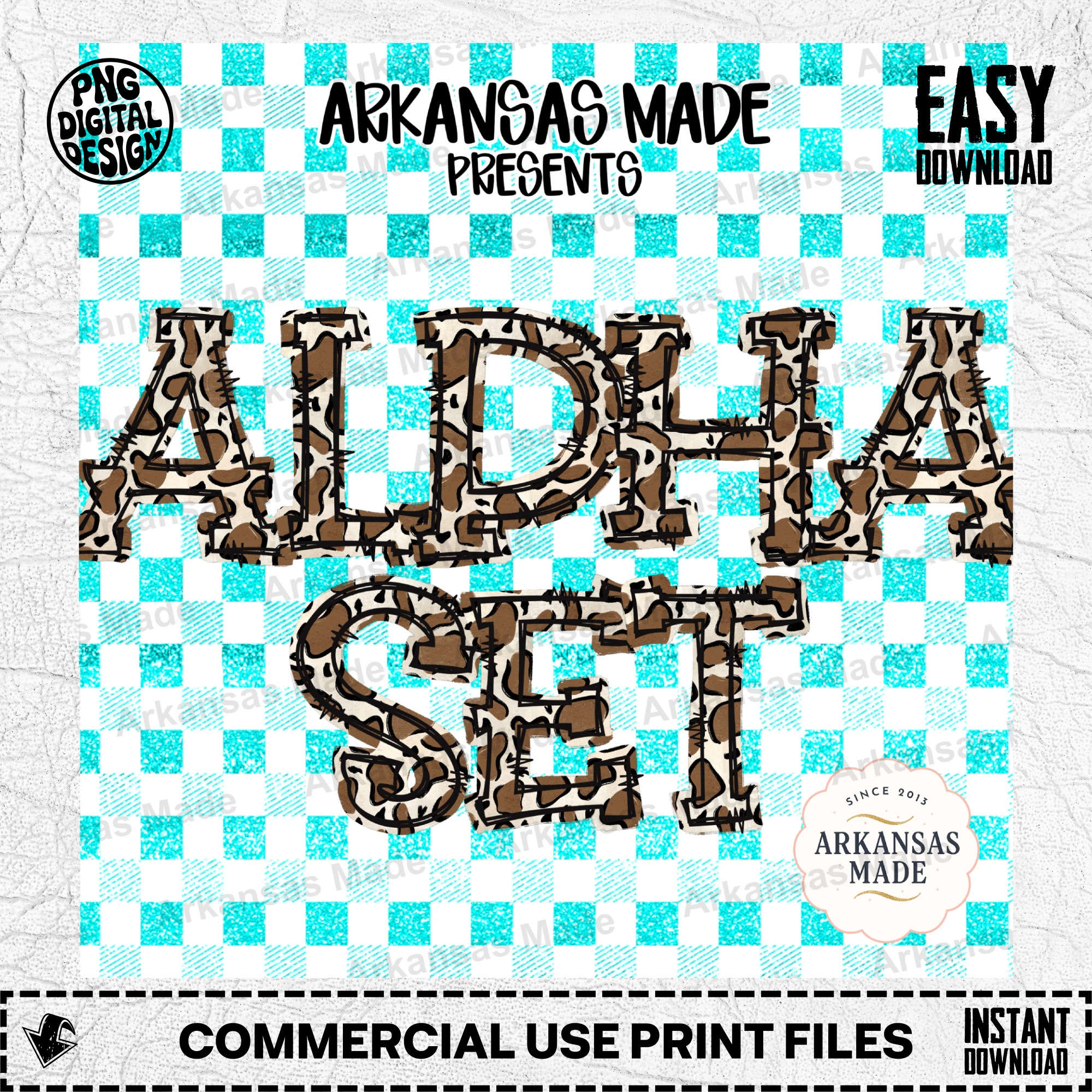
Dive into DIY with our Distressed Cow Print Alpha Set PNG Digital Download! Perfect for Western-themed crafts, sublimation, and custom designs. This unique collection features a full alphabet in a rustic, hand-drawn animal print effect, blending country charm with modern crafting possibilities. Ideal for crafters, small business owners, and anyone looking to add a touch of farmhouse chic or rodeo flair to their creations. A fantastic digital resource for personalized gifts, apparel, and home decor projects.